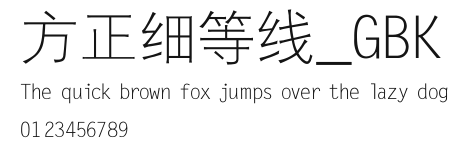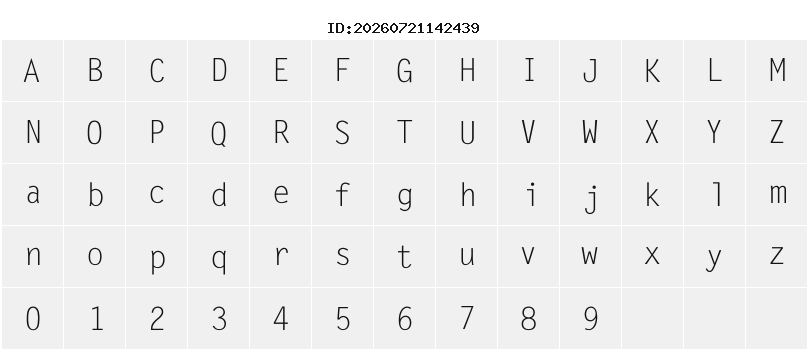
• Font Name: 方正细等线_GBK
方正细等线_GBK.ttf is a modern, elegant sans-serif font designed for ultimate readability and visual harmony. Perfect for branding, headlines, web design, and print materials.